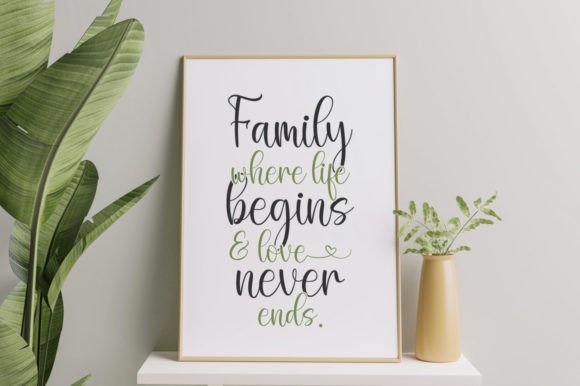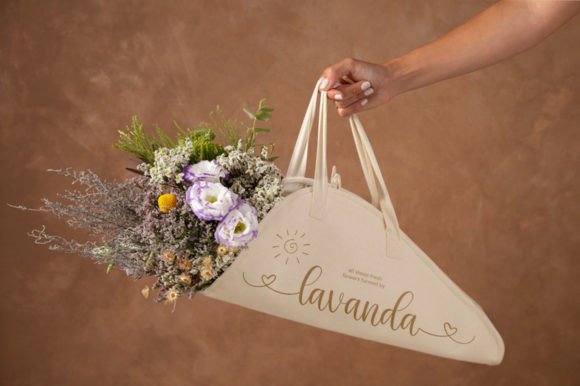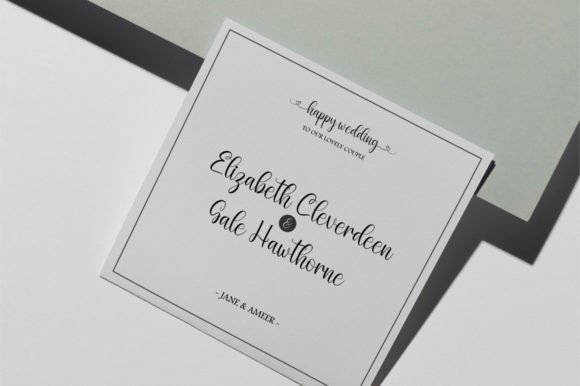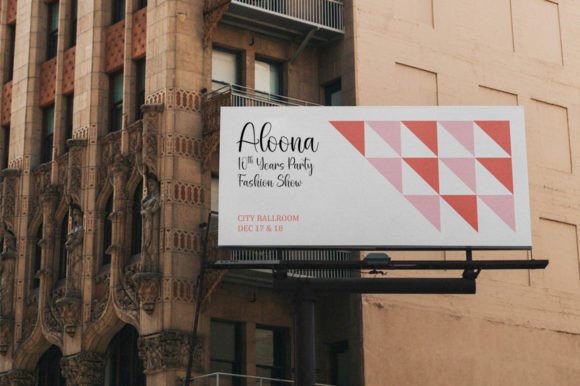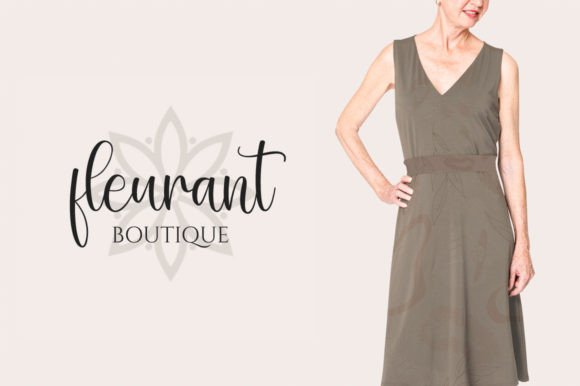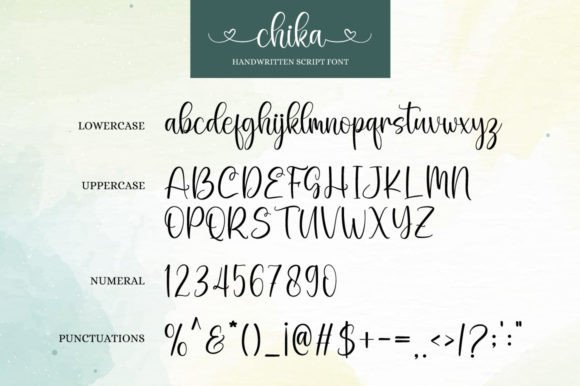
Discover the Elegance of Chika Font: A Delicate Handwritten Font for Your Designs
Are you a designer or crafter looking for a font that exudes elegance and sophistication? Look no further than Chika Font, a beautiful handwritten font that is sure to elevate your designs to the next level. In this article, we’ll take a closer look at Chika Font, its features, and how it can be used to create stunning designs.
What is Chika Font?
Chika Font is a delicate, elegant, and flowing handwritten font that is perfect for a wide range of design projects. Its beautiful and well-balanced characters make it an ideal choice for designers and crafters who want to add a touch of sophistication to their work. Whether you’re creating a logo, branding materials, or social media graphics, Chika Font is sure to impress.
Key Features of Chika Font
So, what makes Chika Font so special? Here are some of its key features:
- Delicate and Elegant: Chika Font is a beautifully crafted font that exudes elegance and sophistication. Its delicate strokes and flowing lines make it perfect for designs that require a touch of refinement.
- Well-Balanced Characters: Each character in Chika Font is carefully crafted to ensure that it is well-balanced and visually appealing. This makes it easy to use in a wide range of designs, from logos to social media graphics.
- PUA Encoded: Chika Font is PUA (Private Use Area) encoded, which means that you can access all of the glyphs and swashes with ease. This makes it easy to customize your designs and add your own personal touch.
How to Use Chika Font in Your Designs
Chika Font is a versatile font that can be used in a wide range of designs. Here are some ideas to get you started:
- Logos and Branding Materials: Chika Font is perfect for creating elegant logos and branding materials. Its delicate strokes and flowing lines make it ideal for businesses that want to convey a sense of sophistication and refinement.
- Social Media Graphics: Chika Font is also great for creating social media graphics, such as Facebook posts, Instagram stories, and Twitter headers. Its elegant design makes it perfect for businesses and individuals who want to add a touch of sophistication to their social media presence.
- Wedding and Event Designs: Chika Font is a popular choice for wedding and event designs, such as invitations, save-the-dates, and thank-you cards. Its delicate and elegant design makes it perfect for creating beautiful and memorable designs.
Tips for Getting the Most Out of Chika Font
Here are some tips for getting the most out of Chika Font:
- Experiment with Different Sizes and Colors: Chika Font looks great in a variety of sizes and colors. Experiment with different combinations to find the one that works best for your design.
- Use it with Other Fonts: Chika Font can be paired with other fonts to create a unique and visually appealing design. Try pairing it with a bold font for a striking contrast.
- Take Advantage of PUA Encoding: Chika Font’s PUA encoding makes it easy to access all of the glyphs and swashes. Take advantage of this feature to add your own personal touch to your designs.
Chika Font is a beautiful and elegant handwritten font that is perfect for designers and crafters who want to add a touch of sophistication to their work. Its delicate strokes, flowing lines, and well-balanced characters make it an ideal choice for a wide range of design projects. With its PUA encoding and versatility, Chika Font is sure to become a favorite in your design arsenal.